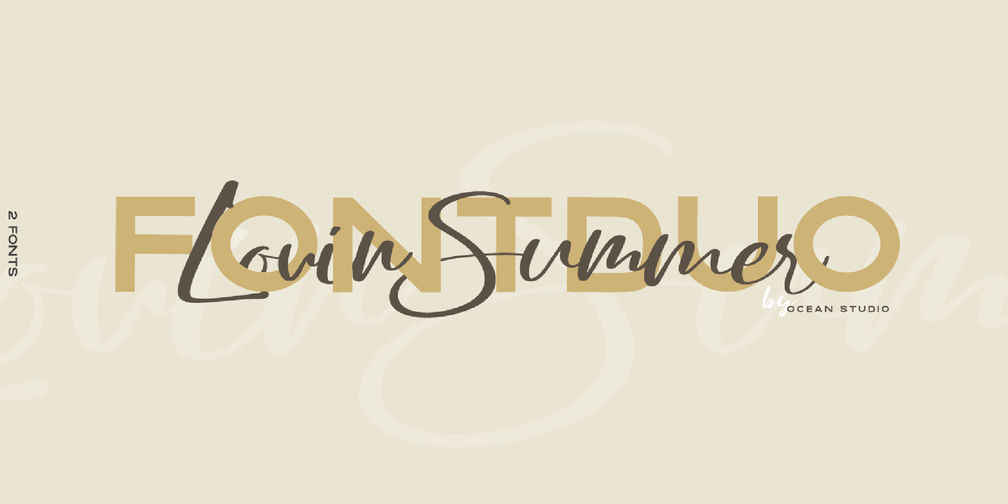
Lovin Summer
Lovin Summer is a stylish font duo that combines an elegant handwritten script with a clean, bold all-caps sans serif. Designed to bring a warm and modern summer feel, this typeface offers both expressive character and strong readability.
Featuring beautiful ligatures, alternates, and swashes, along with full multilingual support, numbers, and punctuation, Lovin Summer is perfect for branding, social media, packaging, editorial design, and creative projects. Create fresh, harmonious, and memorable visuals with ease.